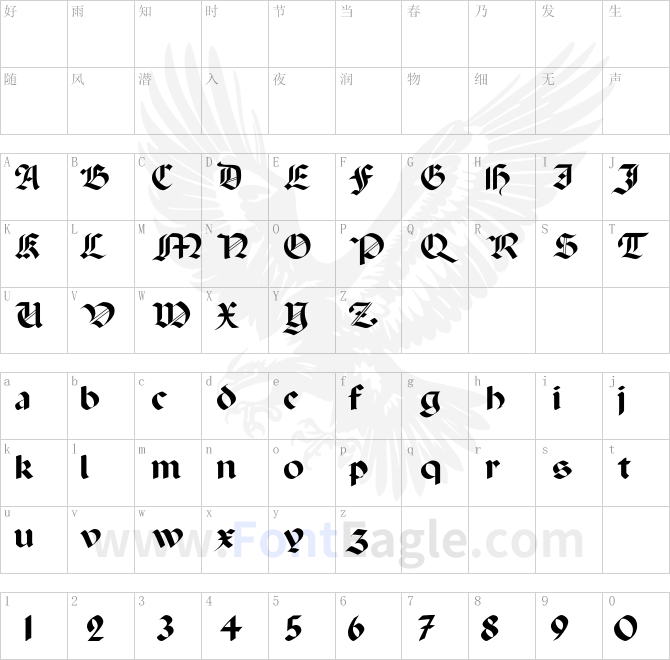
PaladinFLF is a great font, widely used in graphic design, single-page menu design, poster design and other fields, and is deeply loved by designers.PaladinFLF download.